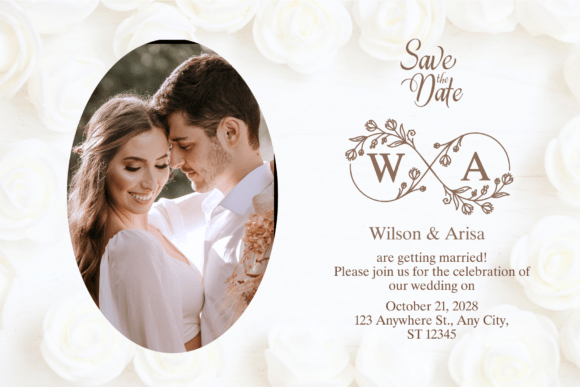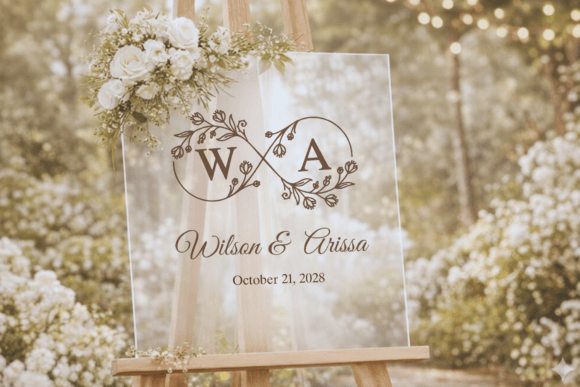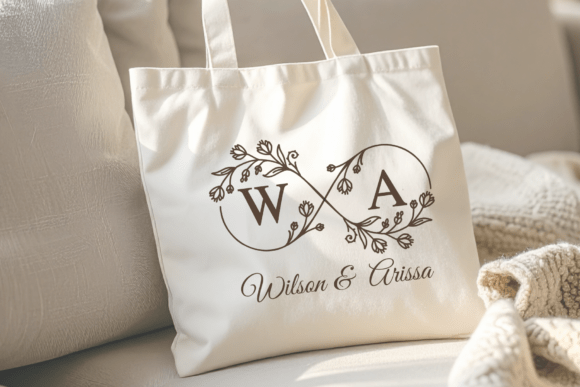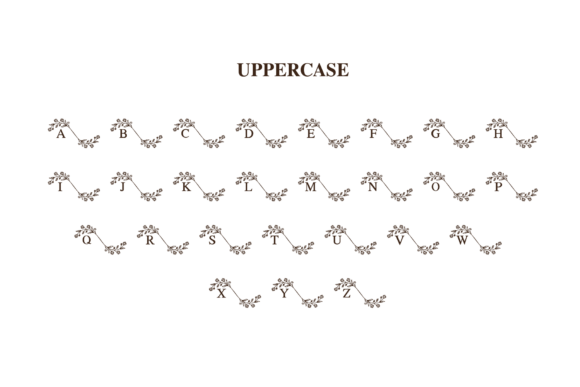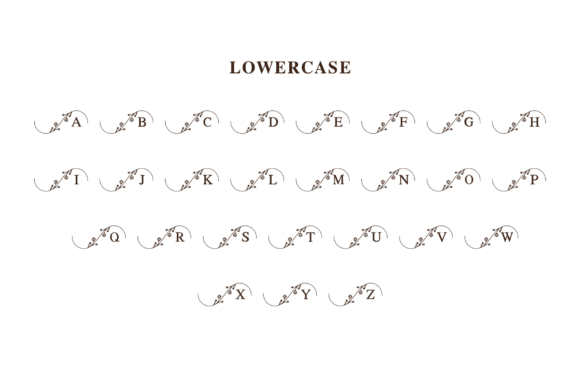
Introduction to Floral Infinity Monogram Font
Floral Infinity Monogram is an elegant decorative alphabet featuring delicate botanical vine elements forming graceful infinity-style frames around each letter.
Perfect for wedding invitations, monogram logos, branding, cards, craft projects, decals, and personalized gifts This stylish botanical monogram adds a romantic and timeless touch to any creative design.
Key Features of Floral Infinity Monogram Font
Why Choose Floral Infinity Monogram Font?
Floral Infinity Monogram Font offers exceptional quality and versatility, making it a valuable addition to your design toolkit. Whether you’re creating for personal projects or commercial use, Floral Infinity Monogram Font delivers professional results.